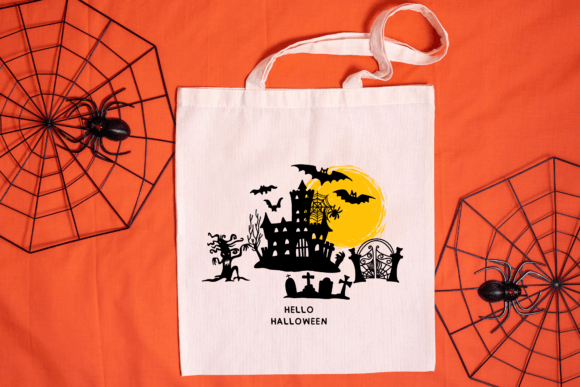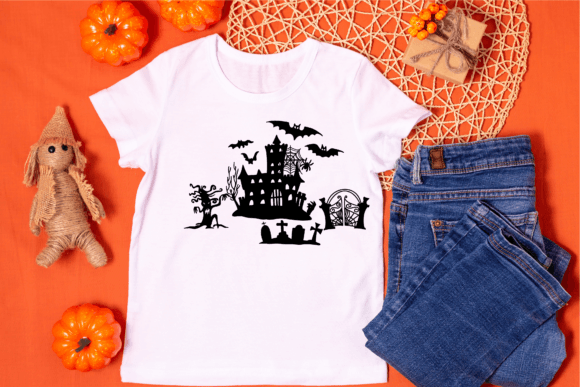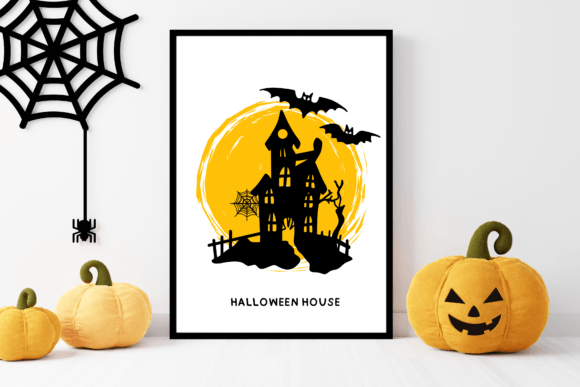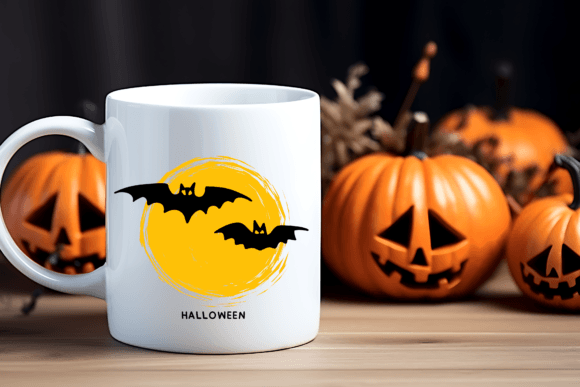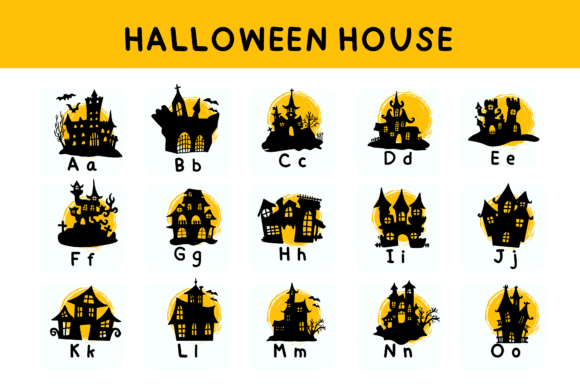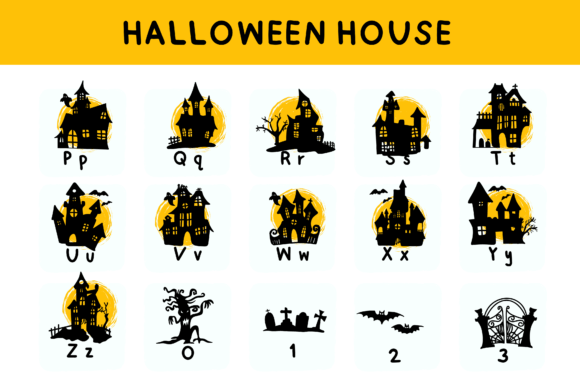
Introduction to Halloween House Font
As the sun sets on a crisp autumn evening, you find yourself rummaging through your craft supplies, searching for the perfect embellishment to add a touch of spooky charm to your Halloween decorations. The sound of leaves crunching beneath your feet echoes in your mind as you envision the perfect design. Suddenly, you stumble upon a hidden treasure trove of creative resources – and that’s where the Halloween House Font comes in.
This delightful dingbats font is a game-changer for designers, offering a unique blend of sketch-style illustrations that can elevate any project from ordinary to extraordinary. Whether you’re crafting a wedding invitation, designing a logo, or creating a DIY decoration, the Halloween House Font is the perfect design resource to bring your vision to life.
Key Features of Halloween House Font
- Unique, spooky design perfect for creative projects and Halloween-themed designs.
- Features a transparent background, ideal for designers who want to create their own backgrounds or use it with other design resources.
- High-quality font with detailed, intricate designs that are sure to add a touch of eeriness to any project.
- Designed to be versatile, making it suitable for a wide range of creative projects, from print designs to digital art.
- Perfect design resource for designers, artists, and crafters who want to add a spooky touch to their work.
Honest Review: Halloween House Font
I recently stumbled upon the Halloween House Font, and I must say it’s a great addition to any designer’s collection. The font is free to download, which is a huge plus for creatives on a budget. It also comes with a transparent background, making it super easy to use in your design projects.
- ✨ Unique and spooky design: The font is perfect for Halloween-themed projects or any creative project that needs a touch of eeriness.
- ✨ High quality: The font is well-designed and has a crisp, clean look that’s perfect for print or digital projects.
- ⚠️ Limited characters: The font only includes a limited set of characters, which may not be suitable for long-form content.
- ⚠️ Not suitable for all projects: The font’s spooky design may not be suitable for all projects, such as corporate or children’s designs.
Overall, I’m impressed with the Halloween House Font. It’s a great design resource that’s perfect for creatives who need a unique and spooky font for their projects. Just be aware of its limitations, and you’ll be all set to create some amazing designs!
The Halloween House Font is a high-quality design resource that can add a spooky touch to your creative projects. It’s a free download that comes with a transparent background, making it easy to integrate into various design applications.
To get the most out of the Halloween House Font, experiment with different font sizes, colors, and arrangements. You can also combine it with other design elements, like images and shapes, to create a unique look.
The Halloween House Font is perfect for Halloween-themed designs, spooky invitations, and creative projects that require a touch of eeriness. You can also use it for non-Halloween-related designs, like gothic-inspired art or mysterious illustrations.